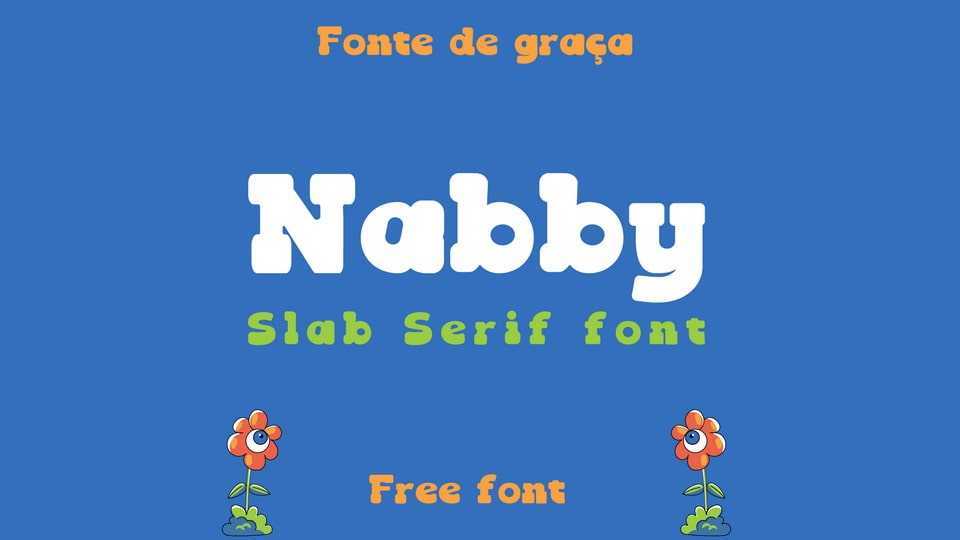
Download Nabby font, a bold and fun typeface that blends charm and authenticity in every line. This font is meticulously crafted for use in illustrative and cartoonish designs.